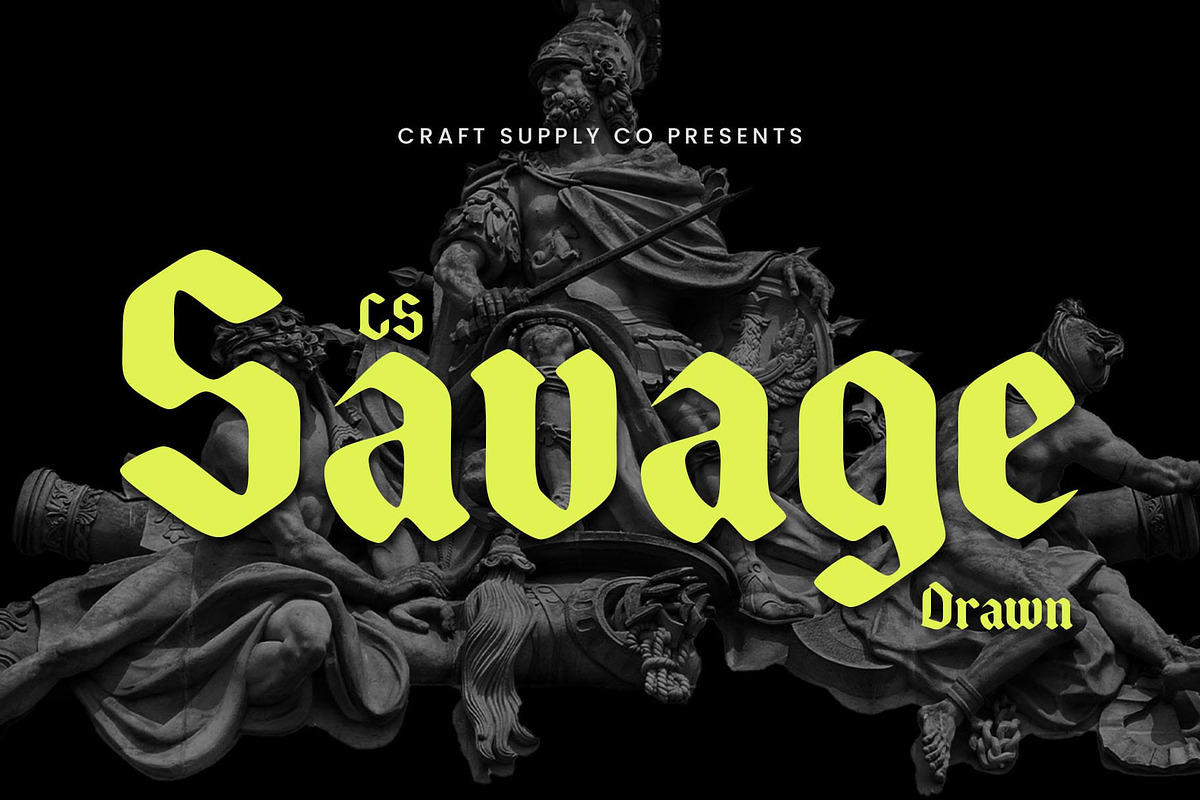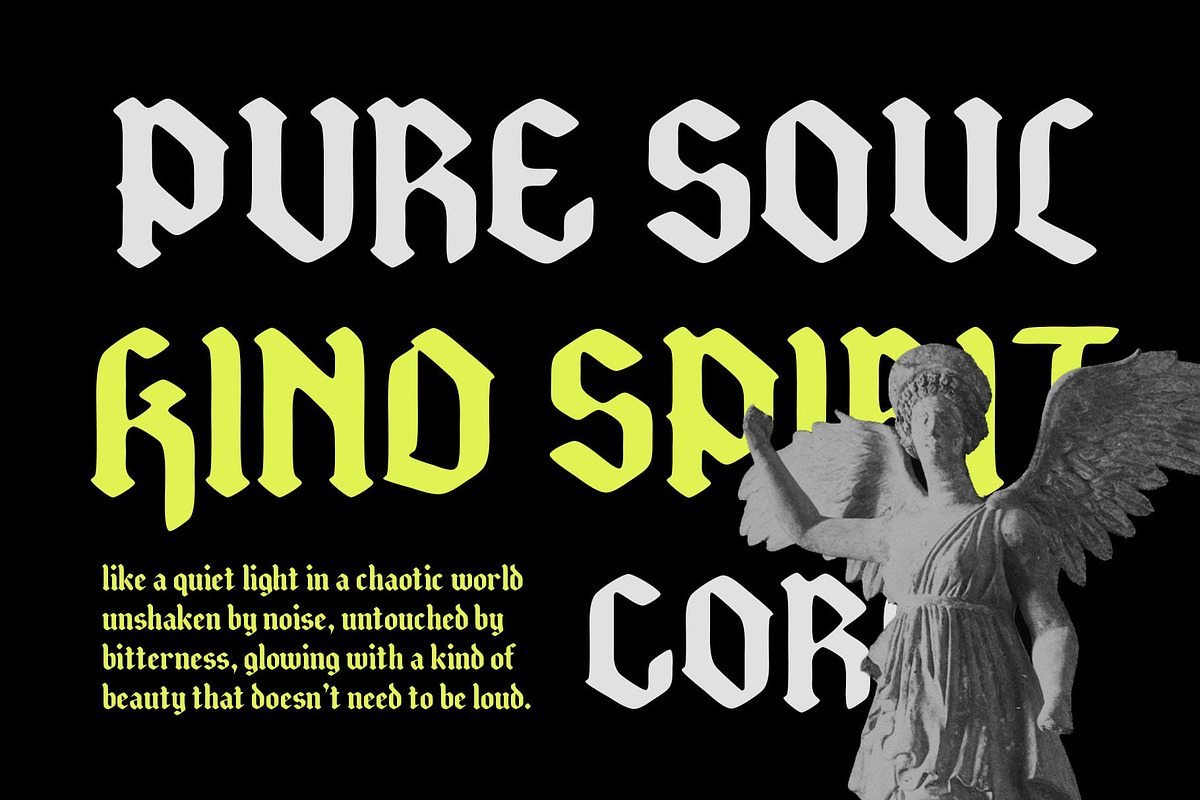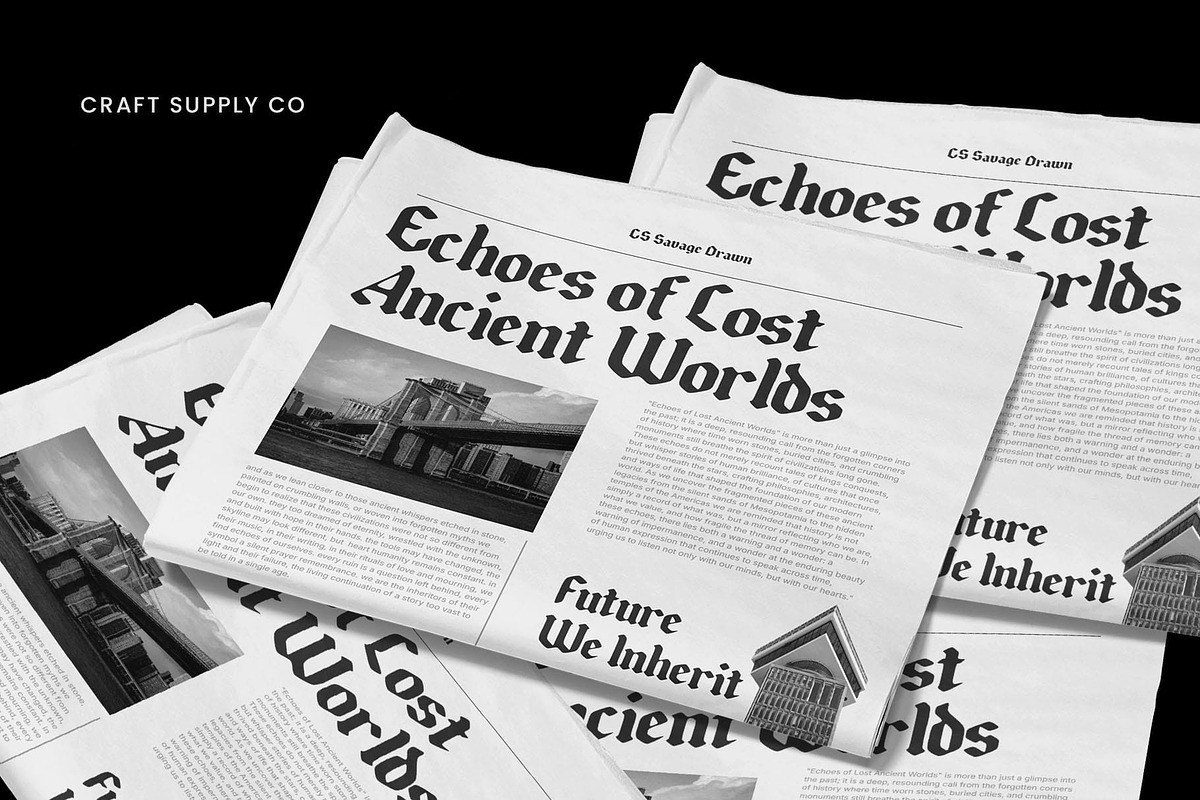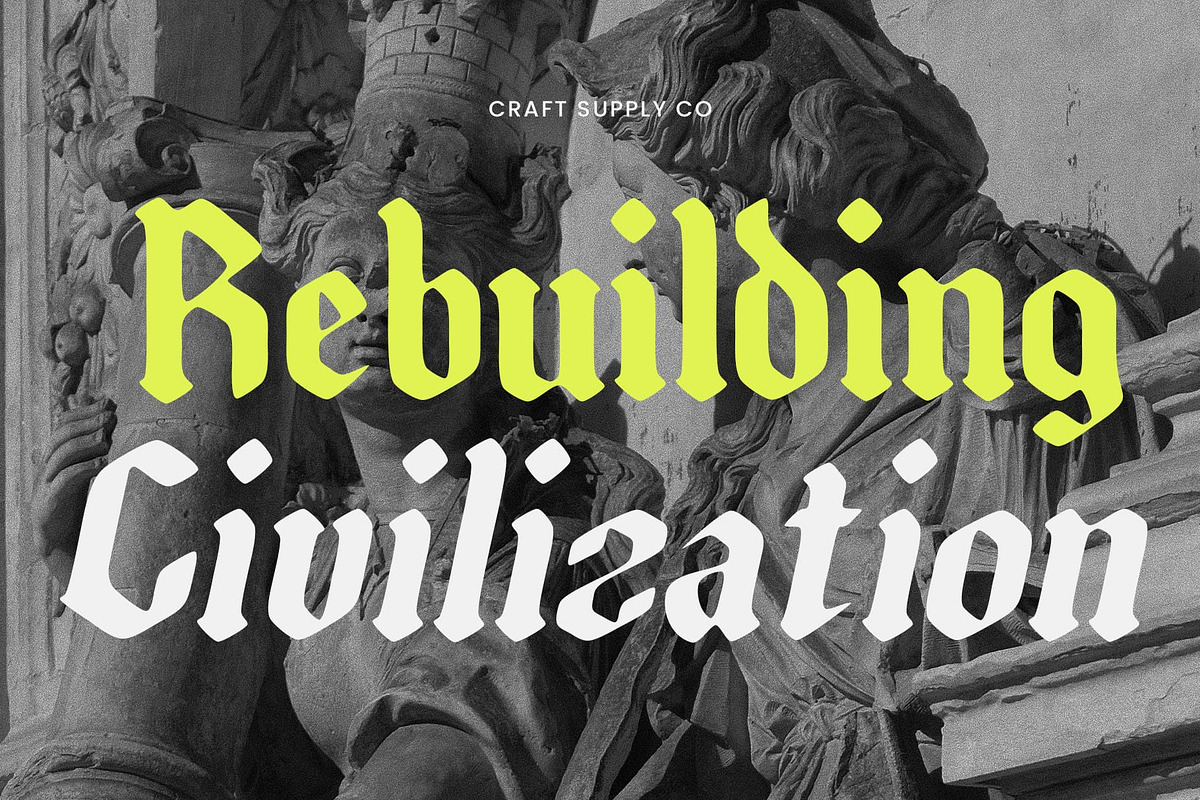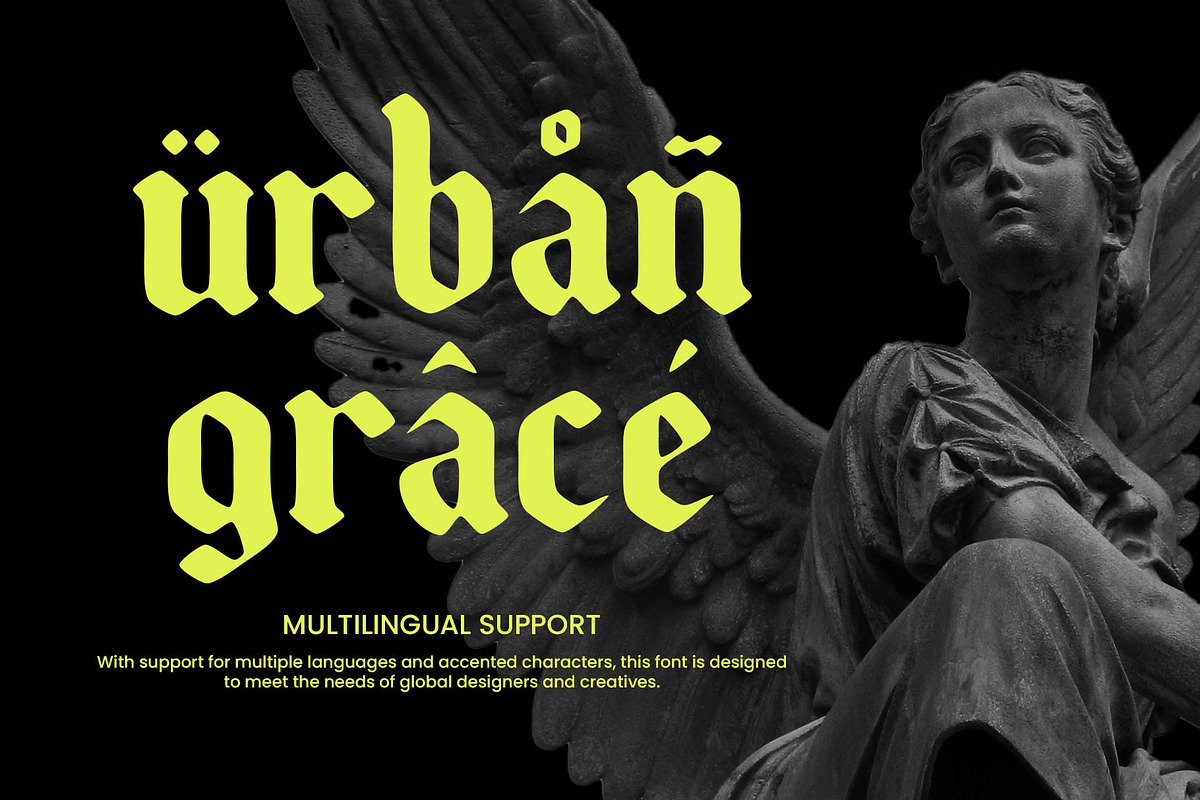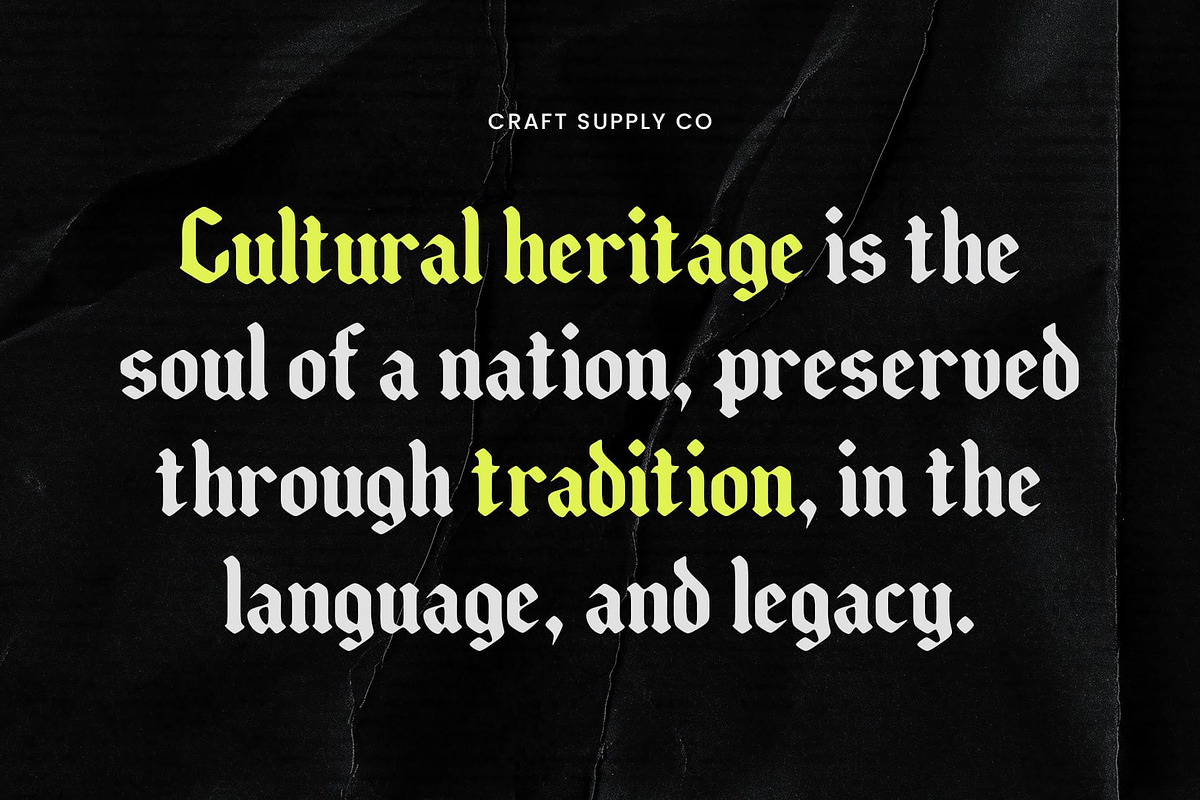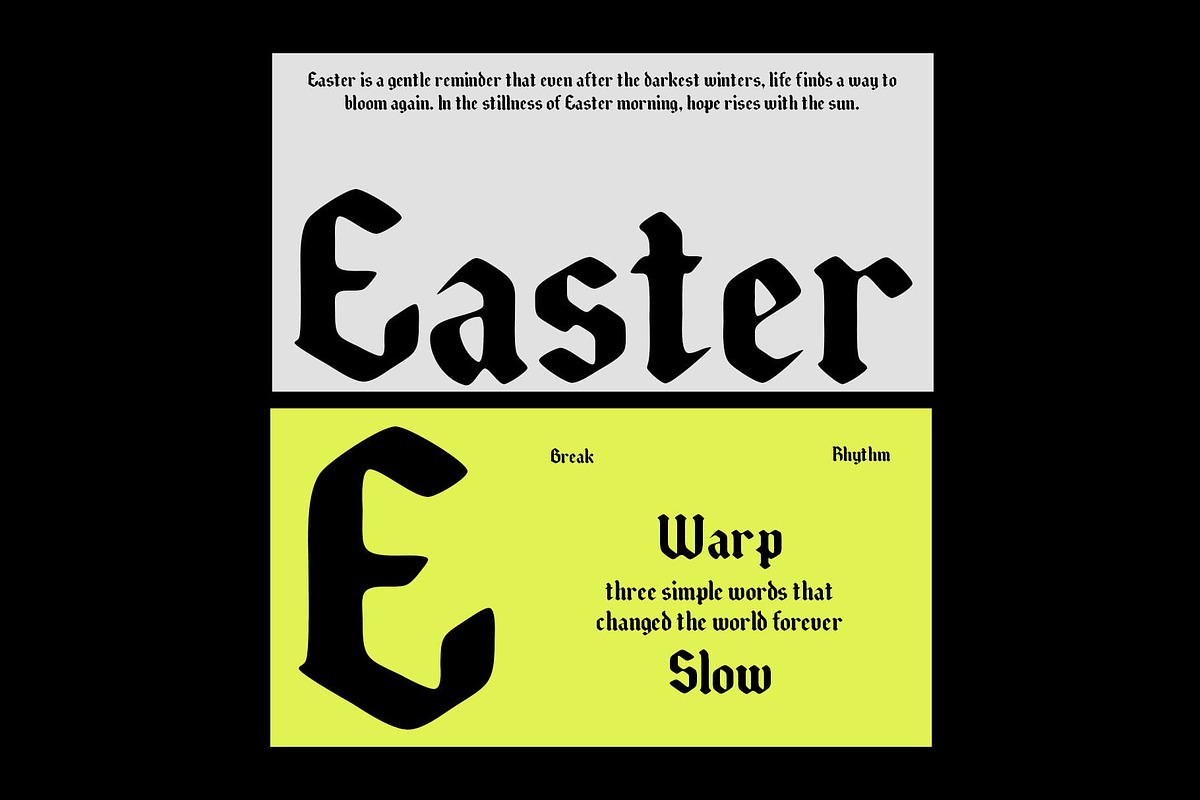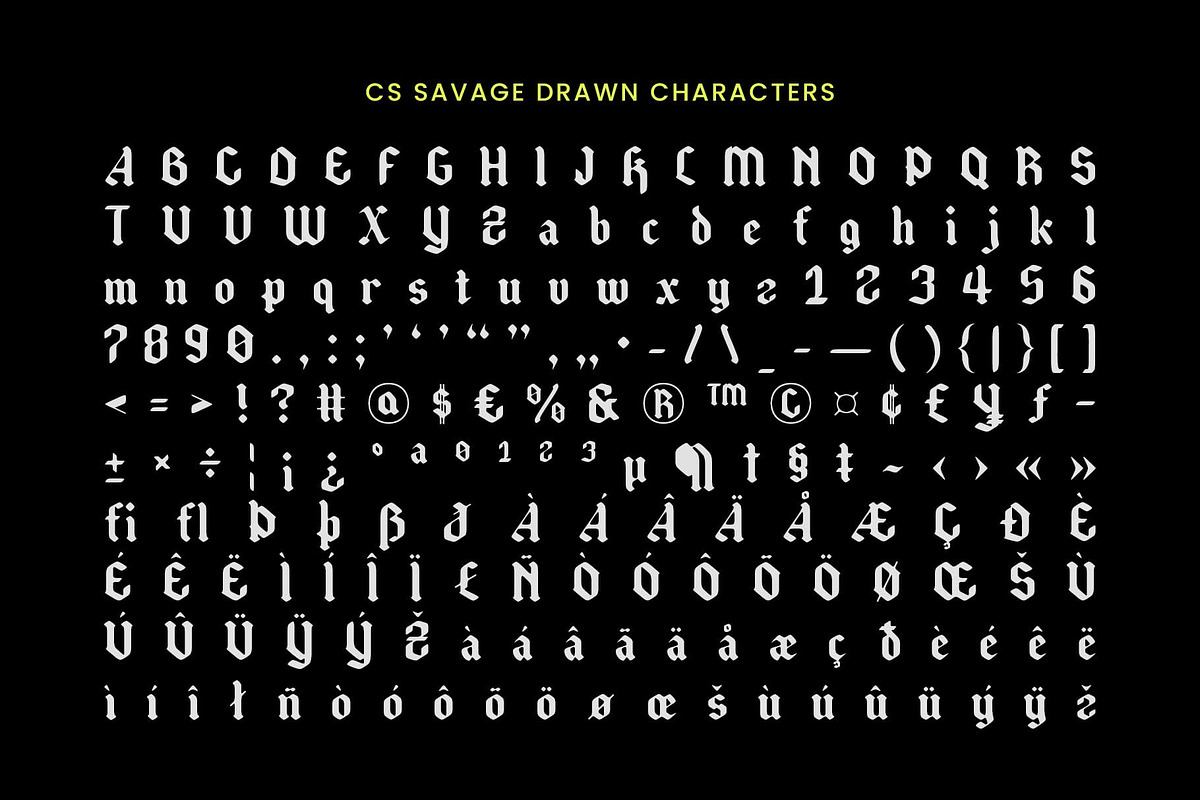
CS Savage Drawn
CS Savage Drawn: Gothic Drama with a Raw Edge
Bold, Sharp, and Expressive Letterforms CS Savage Drawn is a modern gothic display font that captures intensity and attitude through its sharply defined characters and dramatic silhouettes. Its letterforms are bold and angular, exuding strength and mystery—perfect for making a powerful visual statement in any dark or expressive design.
Hand-Drawn Texture for Artistic Depth Infused with a unique drawn effect, the font gains an organic texture that adds depth and personality. This handcrafted touch enhances its gothic structure with a raw, artistic flair, giving it the versatility to stand out in experimental layouts, underground branding, and visually bold projects.
Ideal for Dark-Themed and Alternative Designs Whether you’re designing album covers, horror posters, edgy fashion branding, or anything with a rebellious or moody tone, this display font fits right in. It effortlessly blends traditional gothic influences with a contemporary twist, making it ideal for projects that demand intensity and creativity.
A Striking Fusion of Tradition and Innovation By combining gothic roots with a modern, artistic finish, this modern gothic font stands as a font that respects historical aesthetics while pushing design boundaries. Its strong presence and expressive texture make it a bold choice for creatives who want to leave a lasting impression with style and edge.